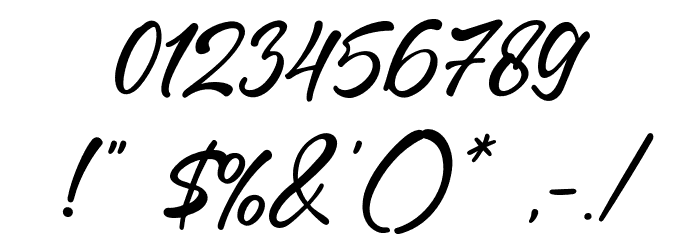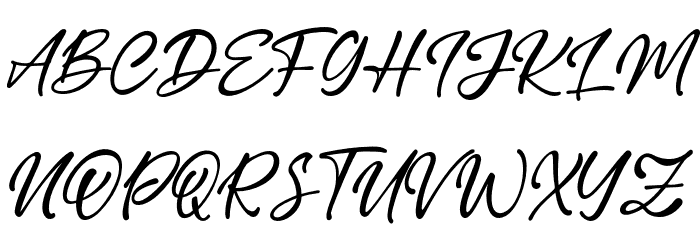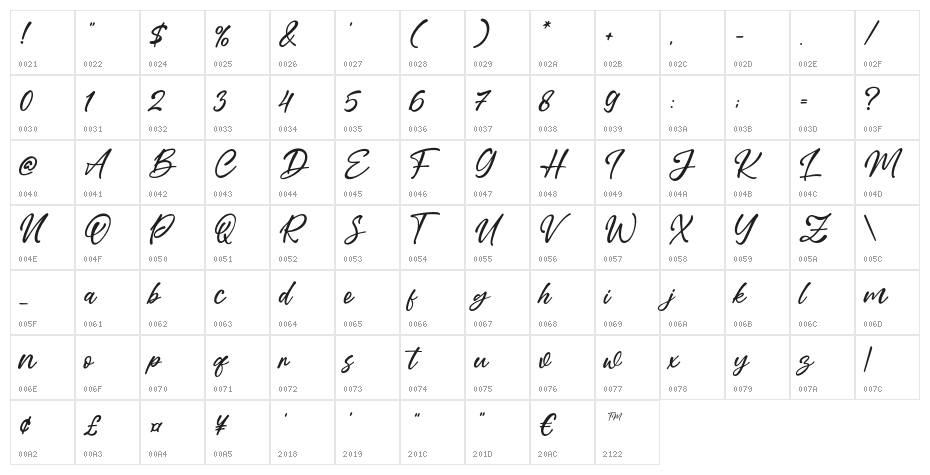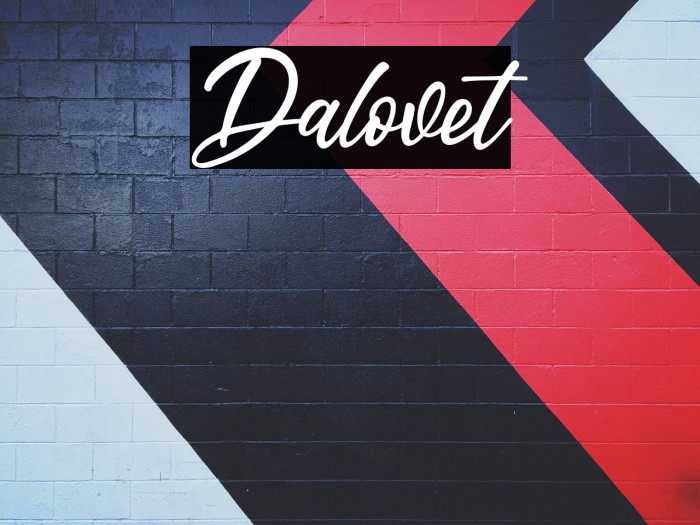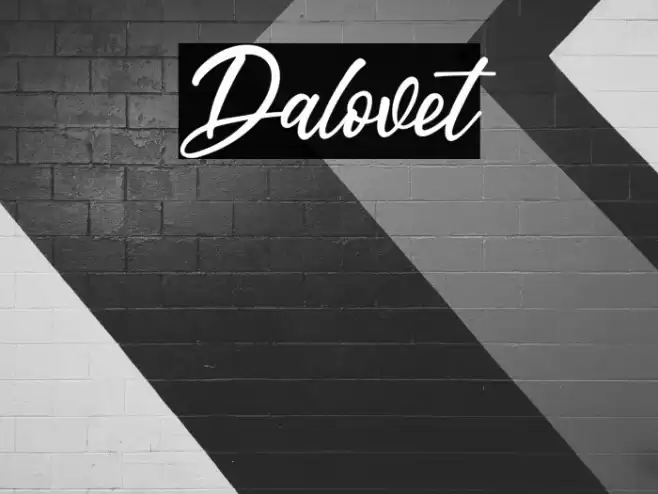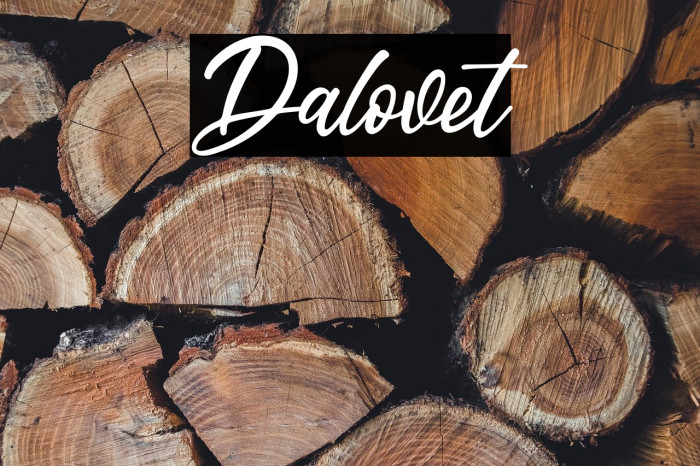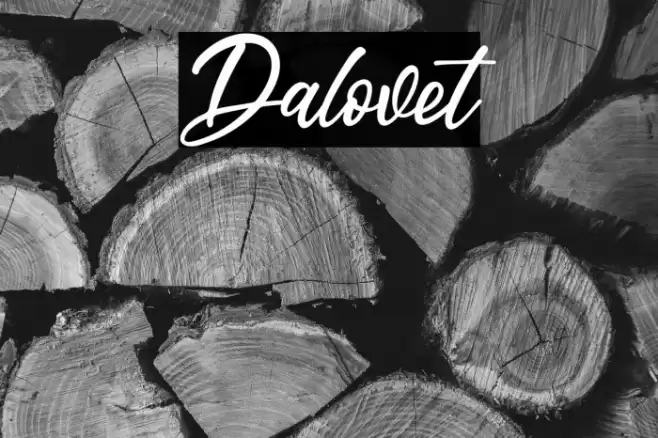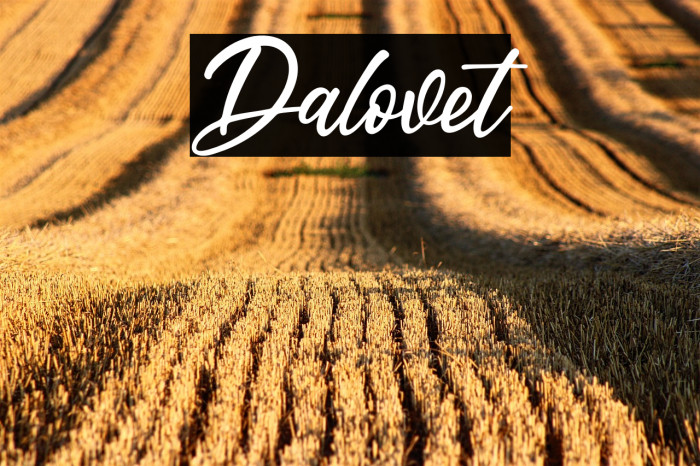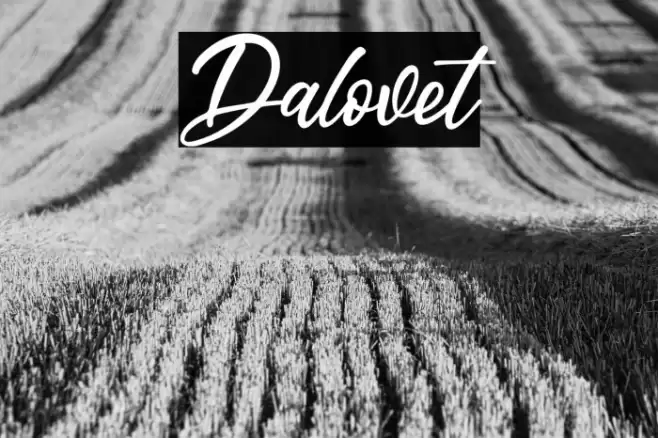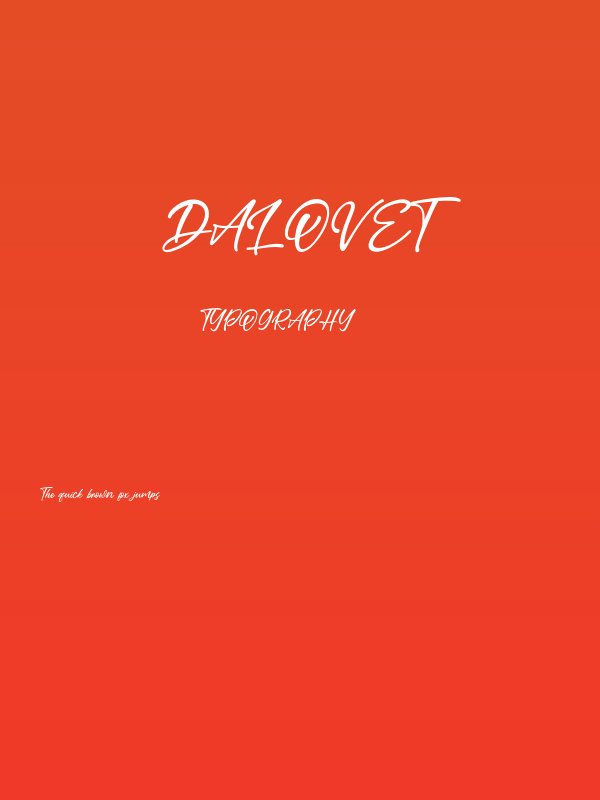
Dalovet Font
Dalovet Description
This font exudes a lively and dynamic handwritten style, characterized by its fluid and cursive letterforms. The strokes are smooth and connected, giving it a natural and personal touch. Each character flows seamlessly into the next, creating a sense of movement and elegance. The uppercase letters are bold and slightly slanted, while the lowercase letters maintain a consistent rhythm and balance. The numerals and special characters are crafted with the same attention to detail, ensuring uniformity across the font. This style is ideal for projects that require a personal and inviting aesthetic.